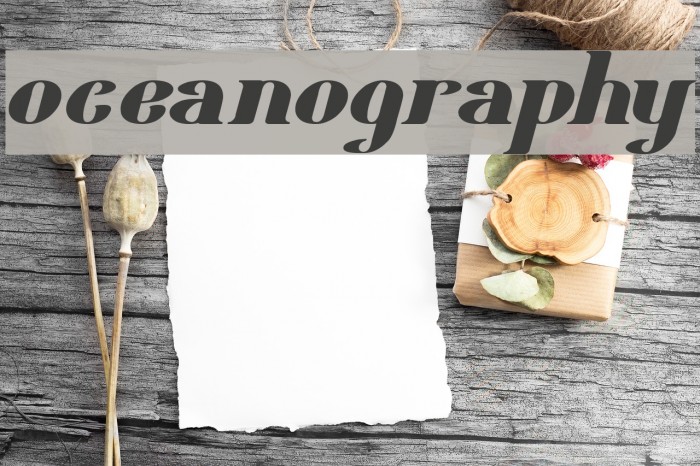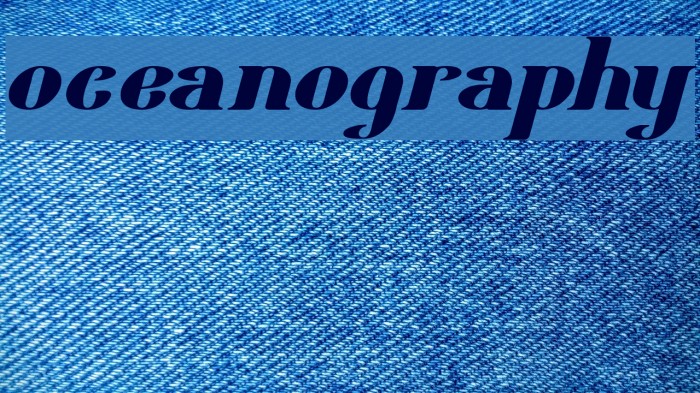
oceanography Font
This font features a bold and dynamic style with a strong presence. The characters are designed with a slight slant, giving them a sense of movement and energy. The strokes are thick and consistent, providing a robust and impactful appearance. The serifs are prominent, adding a touch of elegance and sophistication. This font is suitable for making a statement, with its eye-catching and distinctive design. The overall look is both modern and classic, making it versatile for various applications.
A bold and dynamic serif font with a slight slant and strong presence.
- Proposed Projects: Ideal for branding, headlines, posters, and any project that requires a bold and impactful typeface.